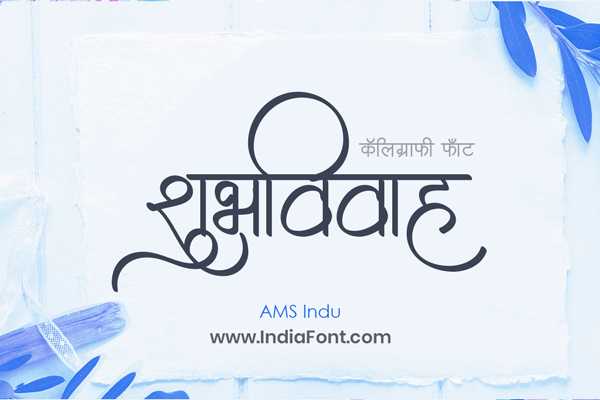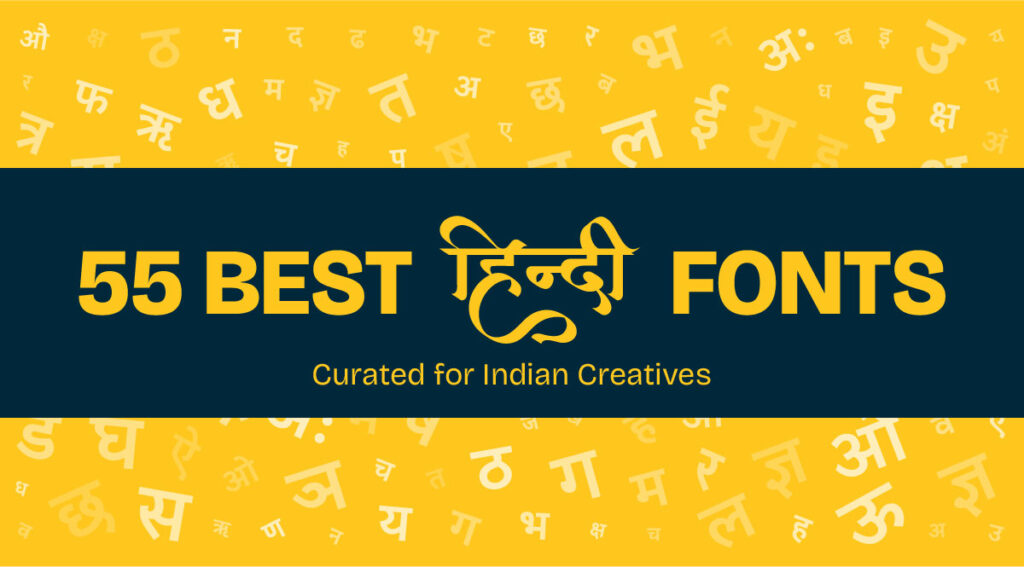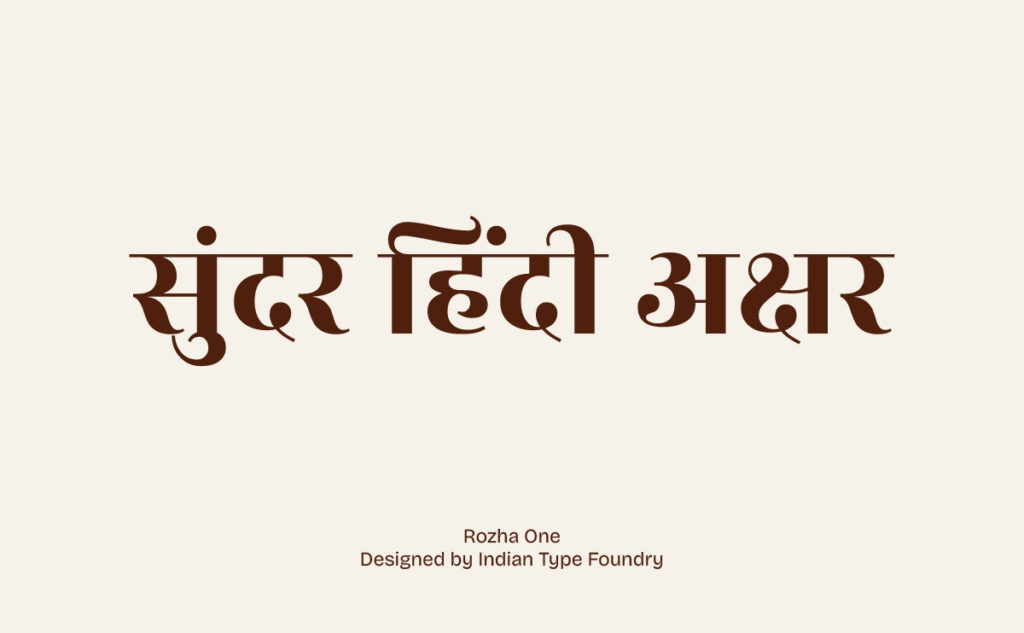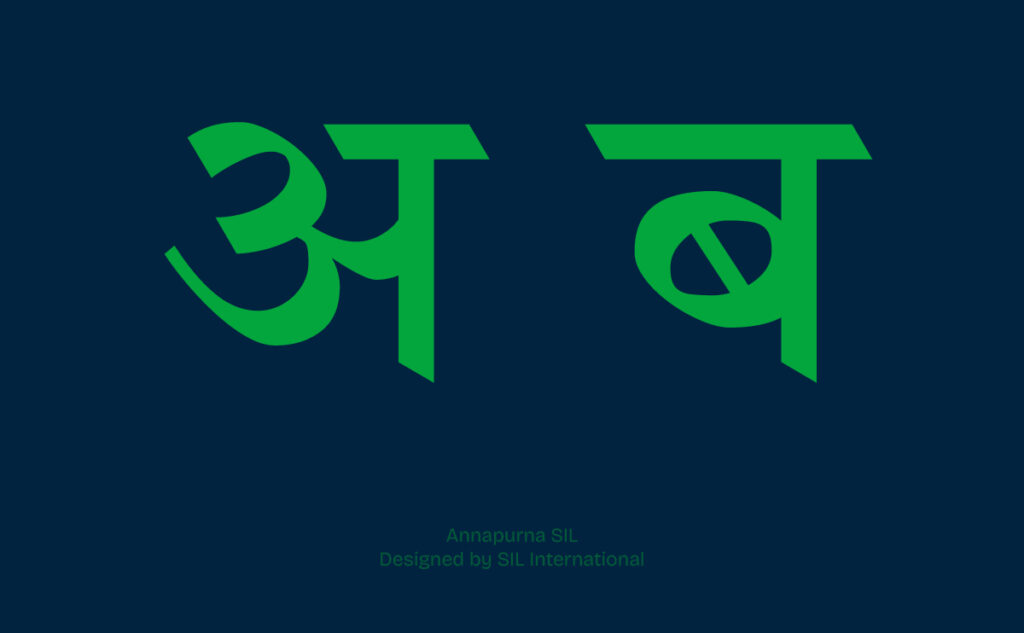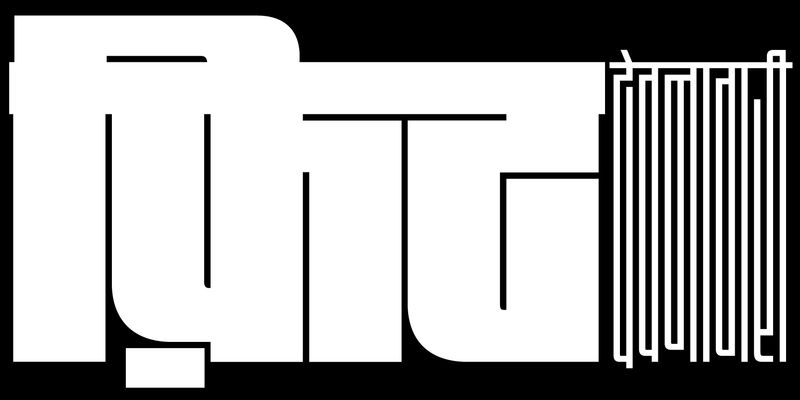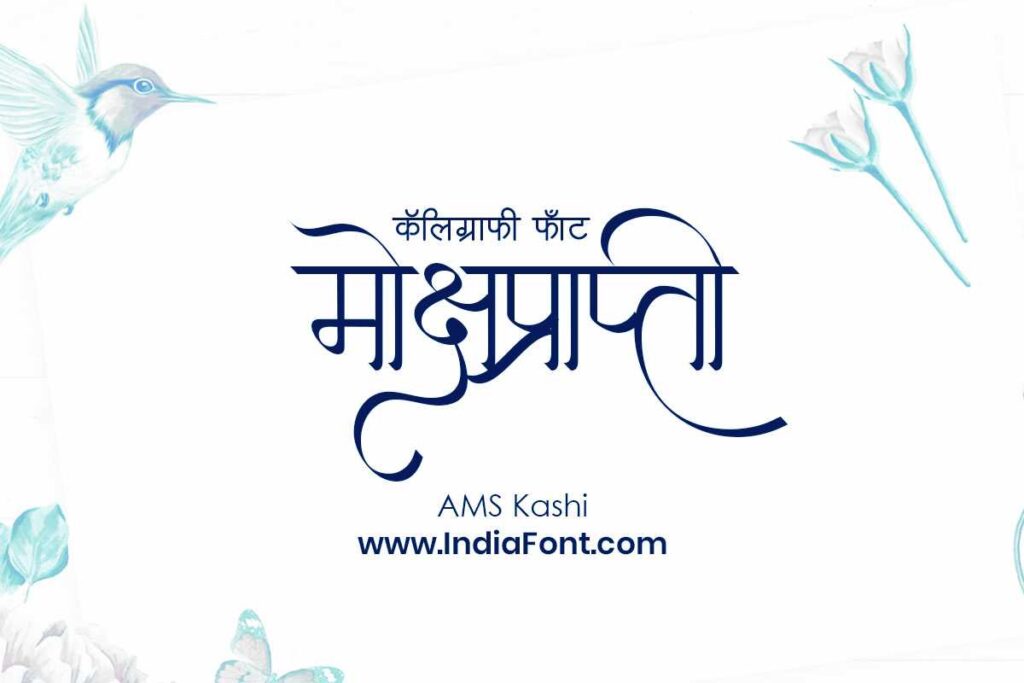
55 Best Hindi Fonts for Creatives, Curated Free and Premium Fonts for Indian Designers
55 Best Hindi Fonts
55 Best Hindi Fonts play a crucial role in Indian design, helping creatives communicate culture, emotion, and authenticity through typography.
Typography is not just about choosing letters — it is about choosing culture, emotion, and identity. For Indian creatives, Hindi and Devanagari fonts play a vital role in branding, posters, packaging, social media, editorial layouts, and digital storytelling.
This post is dedicated to Indian creatives living in India or abroad, who want to design in Hindi while maintaining quality, authenticity, and respect for typography.
Whether you are a graphic designer, brand designer, content creator, or student — this curated list of 55 best Hindi fonts will help you choose the right typeface for your next project.
Why Hindi Fonts Matter in Indian Design
Hindi typography connects directly with Indian audiences. A well-chosen Devanagari font can:
• Build trust in regional and national brands
• Add cultural depth to posters and campaigns
• Improve readability for native Hindi readers
• Make designs feel local, authentic, and human
Design in Hindi is no longer limited to newspapers or books — it now dominates digital media, branding, packaging, and social platforms.
55 Best Hindi Fonts for Creatives
Popular AMS Hindi Fonts (Widely Used by Indian Designers)
55 Best Hindi Fonts
1. AMS Kashi
2. AMS Diya
3. AMS Indu
4. AMS Deepak
5. AMS Kartik
6. AMS Aakash
7. AMS Jambo
8. AMS Handwriting 3
9. AMS Chandrakant
10. AMS Manthan
11. AMS Matarani
12. AMS Minar
13. AMS Shloka
14. AMS Shikha
15. AMS Meghna
16. AMS Kangna
17. AMS Jumbo
18. AMS Ganesha
19. AMS Chhatrapati
20. AMS Sudha
21. AMS Pankaj
22. AMS Vardan
These fonts are extremely popular in posters, banners, religious content, political creatives, and print materials across India.
Classic & System-Friendly Hindi Fonts
Best hindi fonts
1. Aparajita
2. Kokila
3. 3surendra Normal
4. Fit Devanagari
5. Amrit Kuruti7 Regular
6. Annapurna
7. Anupama
8. Sanskrit Text
Modern & Google Fonts (Professional & Web-Friendly)
Best hindi fonts
1. Alkatra — by Suman Bhandary
2. Modak — by Ek Type
3. Palanquin Dark — by Pria Ravichandran
4. Gotu — by Ek Type
5. Jaini — by Ek Type
6. Kadwa — by Sol Matas
7. Noto Serif Devanagari
8. Anek Devanagari Condensed
9. Rozha One
10. Kalam
11. Arya
Decorative, Display & Creative Hindi Fonts
1. Hastkala 1
2. Piyush
3. Ouma Devanagari
4. Lini
5. Maku
6. Chikki Devanagari
7. Ananda Akchyar
8. Apex
9. Aarap 004
10. Biryani
11. Adobe Devanagari
12. Linotype Devanagari
13. Inknut Antiqua
14. Jaini Purva
This makes crediting easy and safe.
2. How to Write Font Credits (Simple & Correct Format)
When designer info is available, use this format:
Font Name — by Designer / Foundry
Examples:
• Alkatra — by Suman Bhandary
• Modak — by Ek Type
• Palanquin Dark — by Pria Ravichandran
For Google Fonts, you can also add:
Source: Google Fonts
3. What About AMS & Older Hindi Fonts?
Many popular Hindi fonts (especially AMS series, Kruti Dev, DevLys) do not have clearly documented designers.
In such cases:
• Do not guess or assume the designer
• Mention them as “widely used free Hindi fonts”
• Avoid commercial misuse unless license is verified
This approach is honest and protects you legally.
4. License Awareness (Very Important)
Before using any Hindi font commercially:
• Check if it is free for commercial use
• If unclear, restrict use to personal or editorial projects
• Prefer open-source fonts for branding and client work
Educating Indian creatives about licensing is as important as sharing fonts.
Final Thoughts
Hindi typography is evolving rapidly, and Indian designers now have access to both traditional and modern Devanagari fonts. By choosing the right font — and crediting designers correctly — we not only improve our work but also support the growing Indian type design community.
This list of 55 best Hindi fonts is built for Indian creatives who want to design responsibly, beautifully, and confidently.
When designer information is available, credit fonts using a simple format such as: